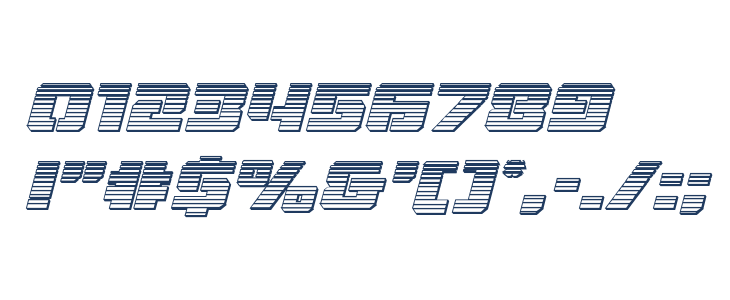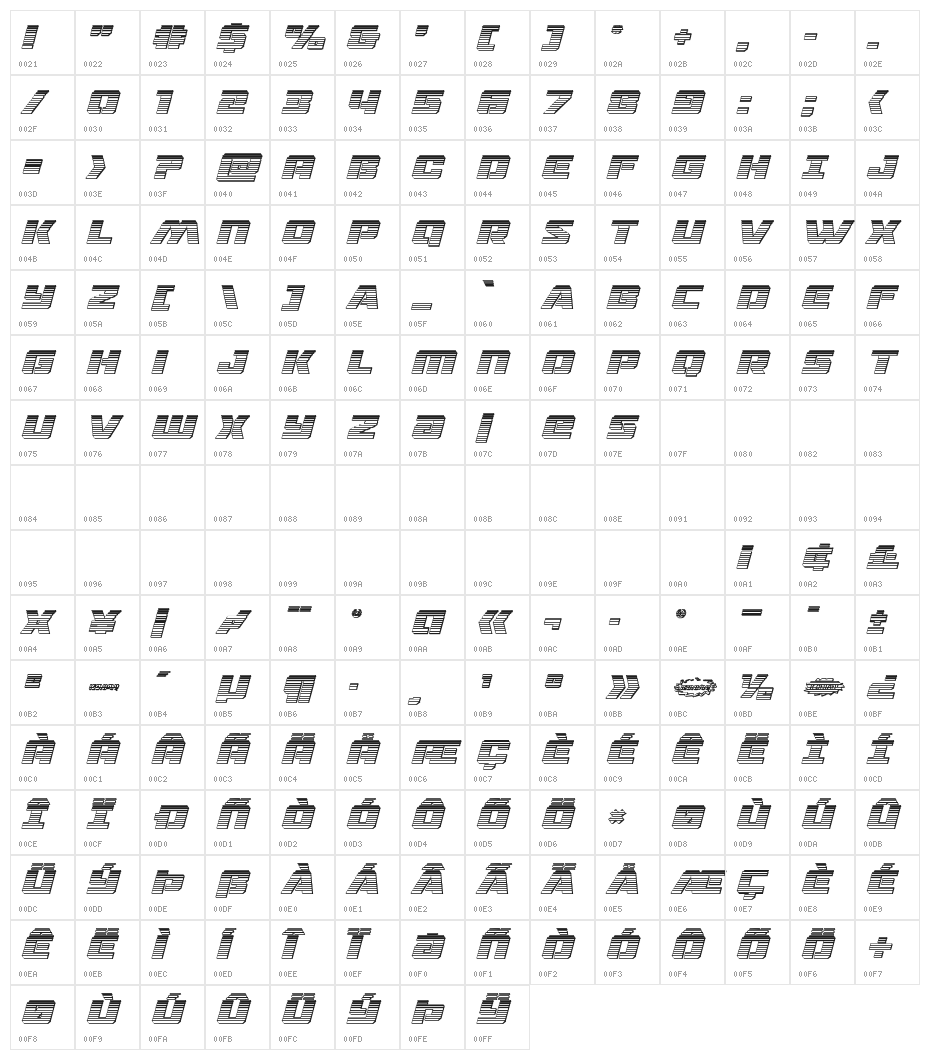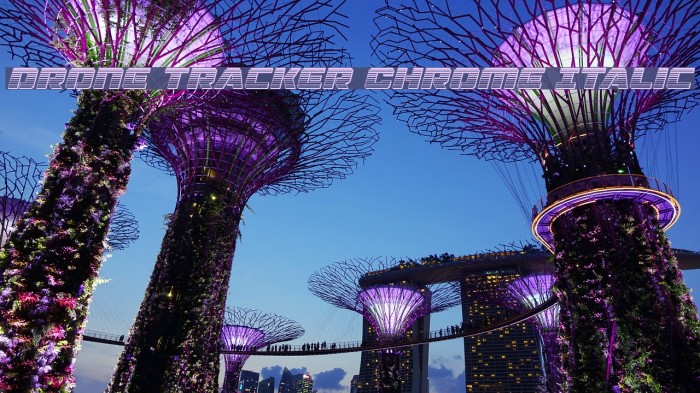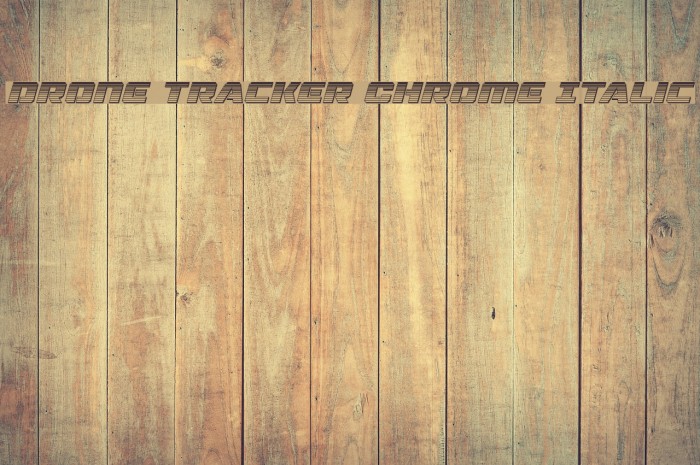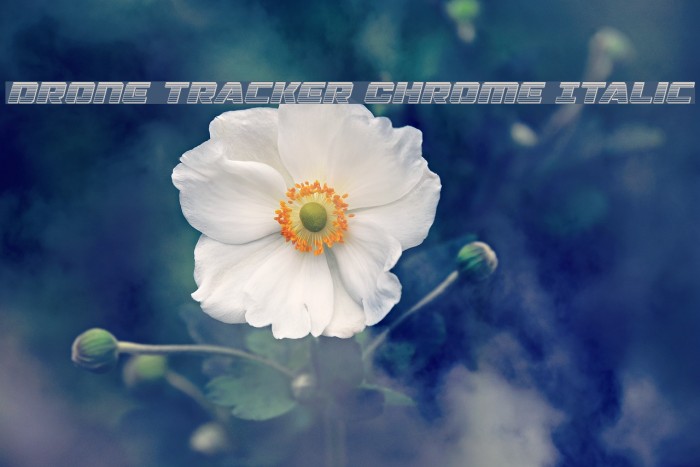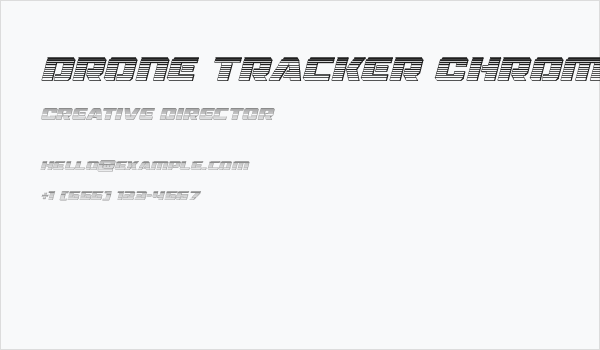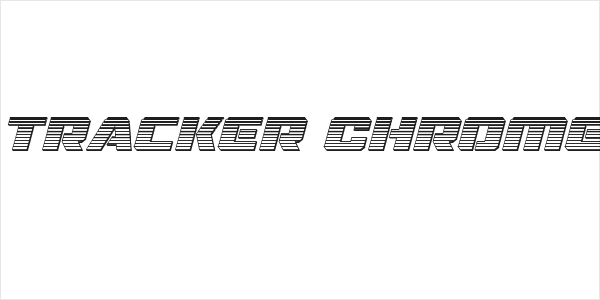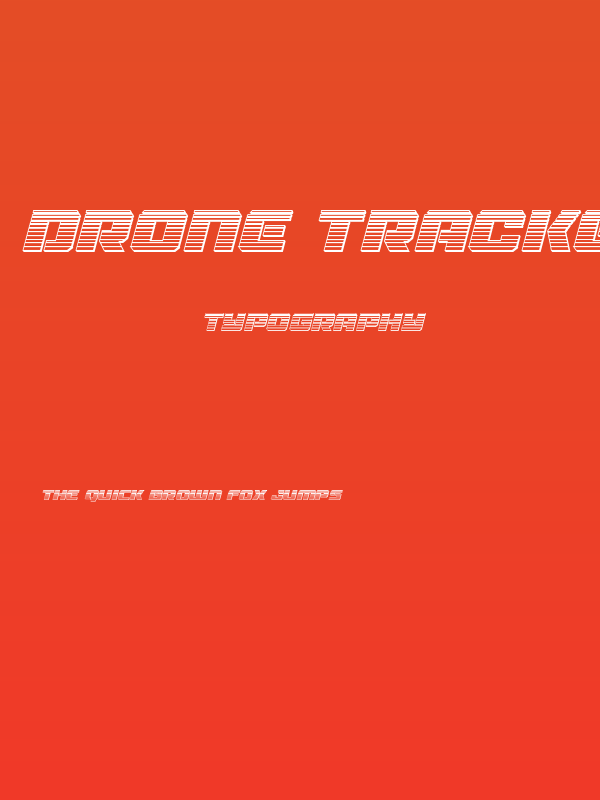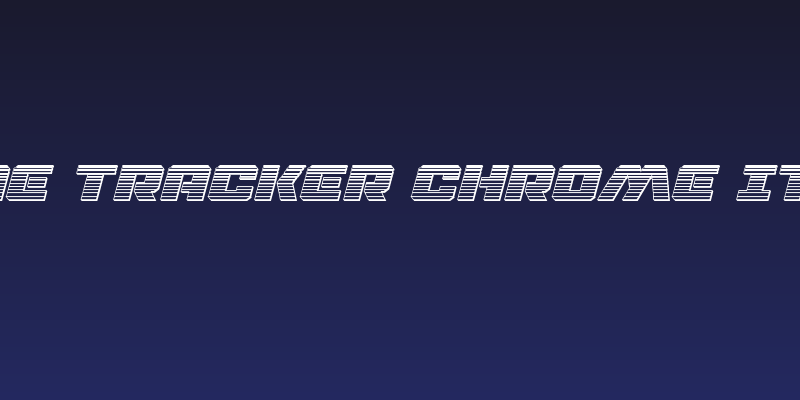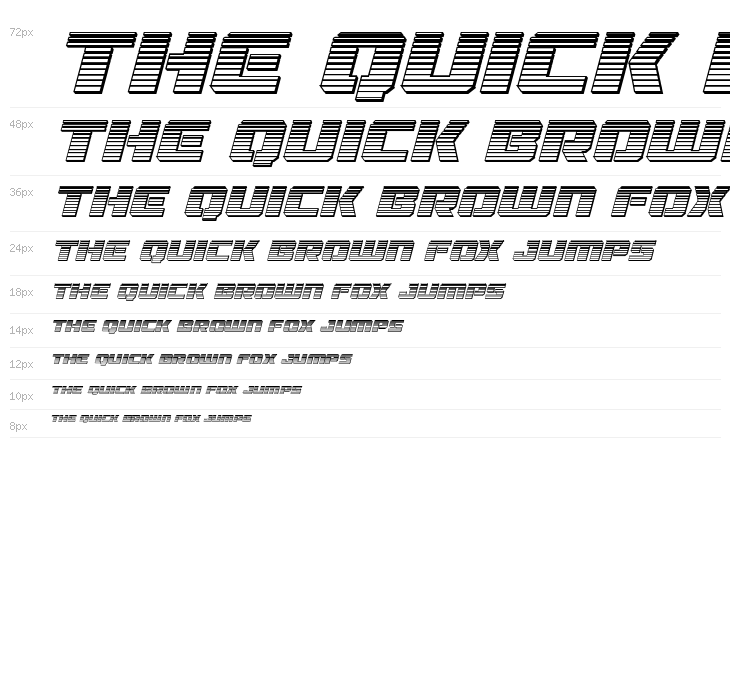
Drone Tracker Chrome Italic Font
Drone Tracker Chrome Italic Description
This font features a futuristic and dynamic design with a distinct italic slant, giving it a sense of motion and speed. The characters are constructed with multiple parallel lines, creating a layered, three-dimensional effect. This unique style is reminiscent of digital or technological themes, making it ideal for projects that require a modern and edgy look. The font maintains consistent line spacing and uniformity across all characters, ensuring readability while still providing a visually striking appearance.
| Proposed Projects | Ideal for technology branding, sci-fi movie posters, video game titles, and modern digital interfaces. |